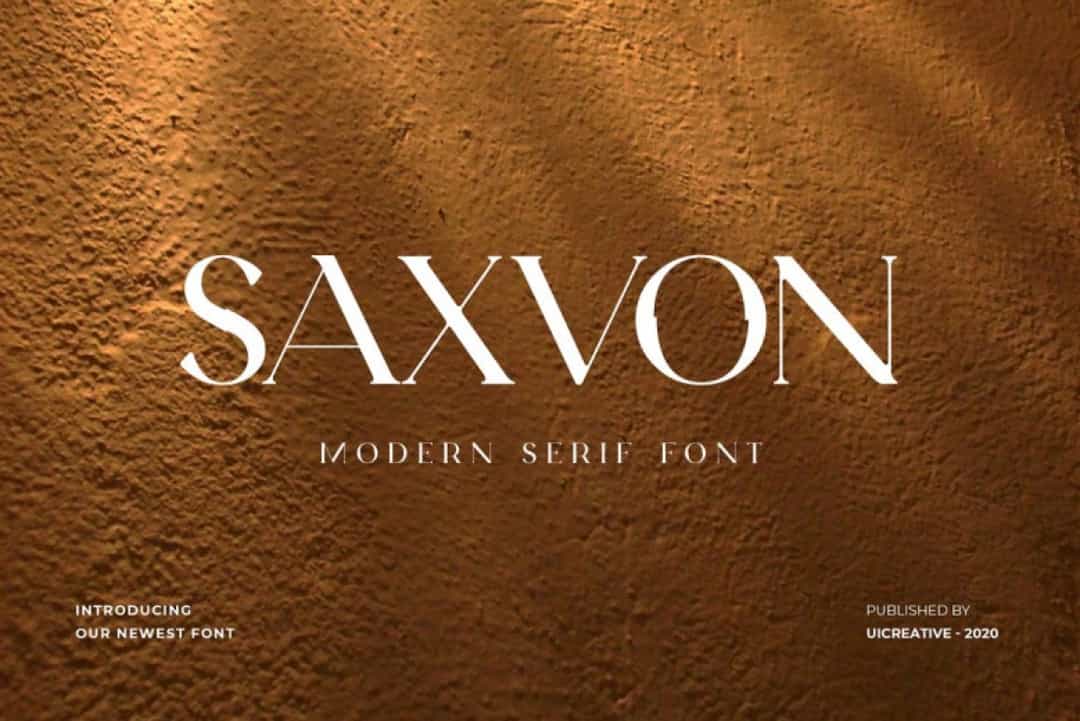
Saxvon is an elegant yet thin serif font perfect for wedding invitations, logos, letters, headings, t-shirts, signage labels announcements posters badges badges and many other uses.